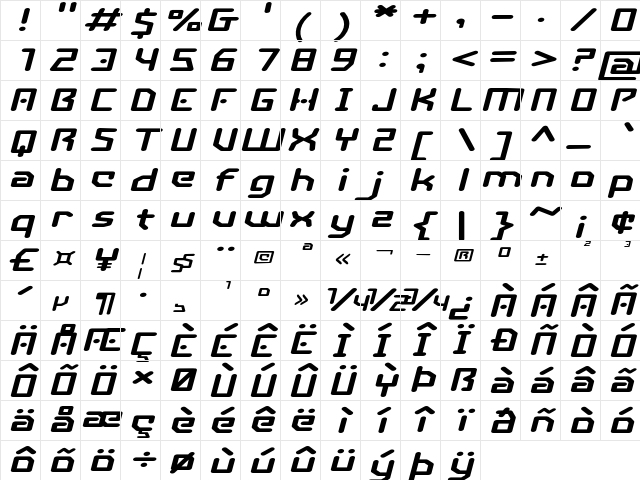
Complete Aeris Corda Extra-expanded Italic glyph index. Displaying only characters natively supported by Aeris Corda Extra-expanded Italic font.
Aeris Corda is a composed and adaptable typeface that performs quietly and consistently across a wide range of design contexts. The slanted form adds forward momentum and visual energy.